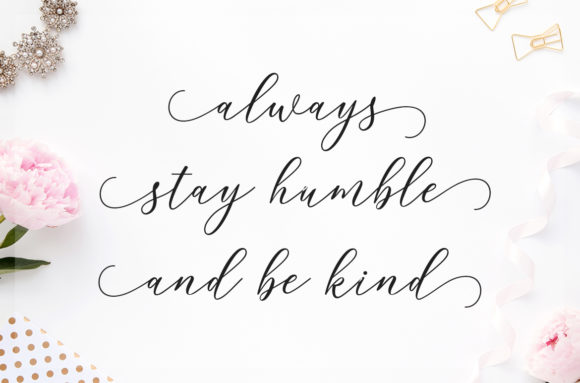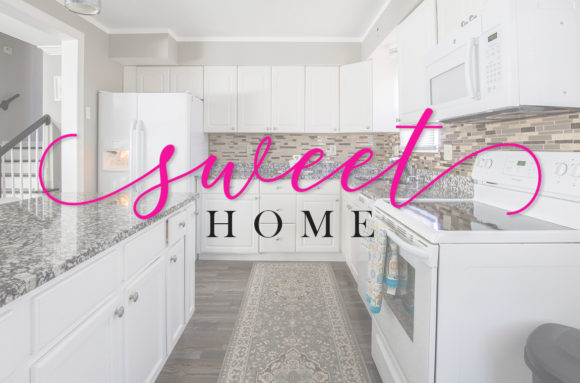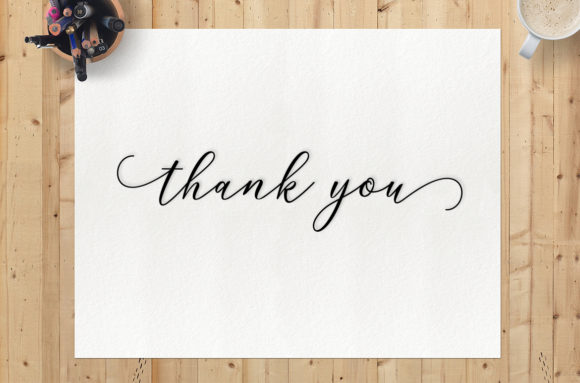
Berlian Script Font
About Berlian Script Font
Berlian Script is a stunning, beautiful and elegant handwritten font with a unique charm. Fall in love with its bold swashes and timeless appeal!